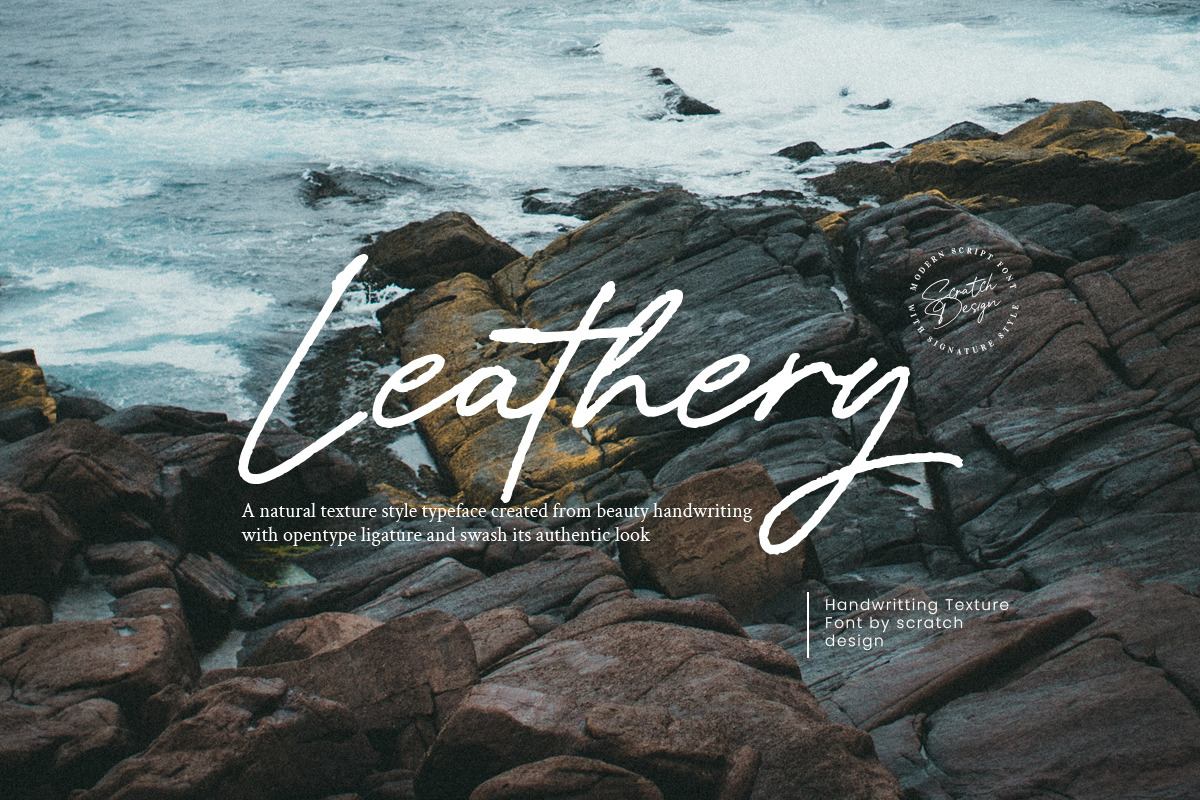
Please note, to use this font for commercial purposes, you must purchase the full version. Leathery Script is an elegant and rugged script font that combines bold, stylish letterforms with a touch of texture, making it perfect for designs that need a handcrafted, unique look. Whether you're designing logos, branding materials, invitations, or other creative projects, Leathery Script adds a sophisticated yet rugged feel to your work. Test it out and enjoy free download access for personal use. Experience the bold, distinctive style of Leathery Script Font Free Download before purchasing the commercial license. Add a stylish, textured touch to your designs with Leathery Script.